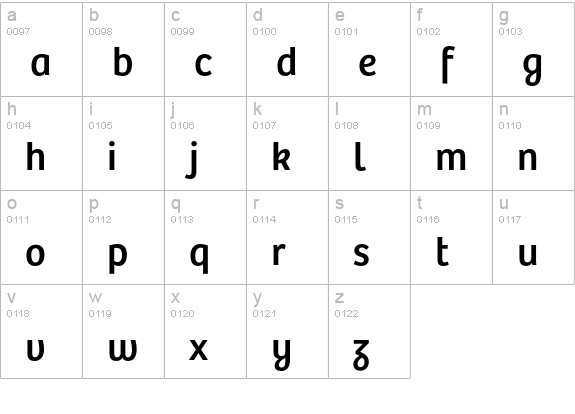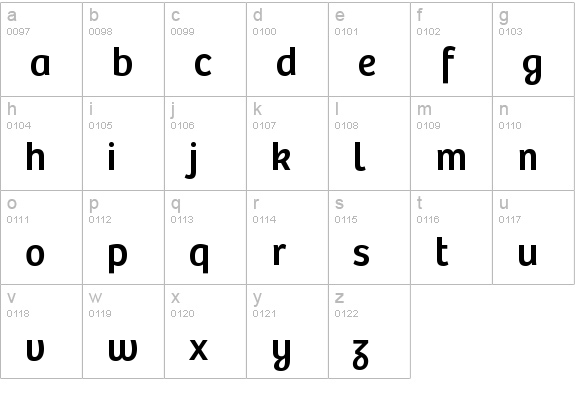
Bree Regular is the standard, neutral variant in the Bree typeface family \xE2\x80\x94 well suited to general body text, paragraphs, and standard typographic work.
Bree Regular font is a modern and stylish typeface that exudes elegance and sophistication. With its clean lines and balanced proportions, this font is perfect for a wide range of design projects, from branding to editorial design. The versatility of Bree Regular makes it a popular choice among designers looking for a sleek and contemporary typeface. Best of all, Bree Regular is available for free download at FontsMarket.com. This means you can easily access this beautiful font and use it in your projects without any cost. Whether you're working on a website, logo, or print materials, Bree Regular will add a touch of class and professionalism to your designs. Download Bree Regular today and elevate your typography game!